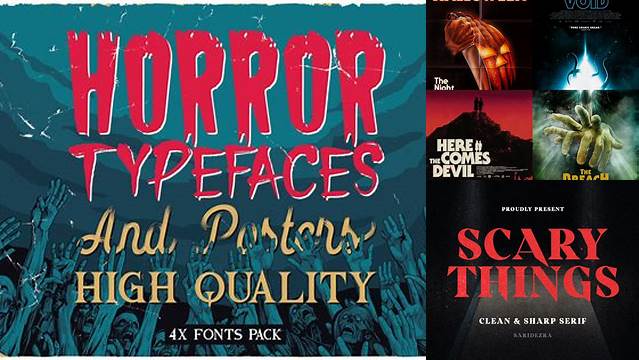
Scary Fonts: Best Choices For Horror Movie Posters
Introduction: Setting the Stage with the Right Font
Hey horror movie fanatics! Ever stopped to think about what makes a horror movie poster truly terrifying? Sure, a creepy image and a chilling tagline are essential, but the font you choose can make or break the whole experience. It's the first thing that grabs your attention and sets the tone, so choosing the best fonts for horror movie posters is crucial. Think about it: the right font can whisper of suspense, scream of terror, or even hint at something supernatural. The wrong font? Well, it can turn a potential masterpiece into a B-movie joke. This guide dives deep into the world of fonts, exploring what makes them work (or not work!) in the realm of horror. We'll cover everything from the characteristics of a good horror font to the actual font recommendations that will help you create posters that will scare your audience. Get ready to learn how to choose fonts that will send shivers down the spines of anyone who dares to look at your poster. It's about more than just picking letters; it's about crafting an atmosphere of dread and anticipation that will stick with people long after they've seen your movie. Using the right font can be the difference between a good horror movie poster and a truly unforgettable one. So let's get started and discover the power of typography in the world of horror.
The Anatomy of a Terrifying Font: Key Characteristics
Alright, let's get into the nitty-gritty of what makes a font scream "horror." Not all fonts are created equal, especially when it comes to evoking fear. Several characteristics contribute to a font's ability to scare. We're talking about the aesthetics, the overall style, and the historical usage that influences our perception. First up is serifs vs. sans-serifs. Serifs are those little "feet" or decorative strokes at the end of letters, while sans-serif fonts lack them. Generally, serif fonts, especially those with a gothic or old-fashioned appearance, can create a sense of history, tradition, or even the supernatural. Think about old books or the title cards of classic horror films; these serif fonts are often utilized to evoke feelings of ancient evil or dusty secrets. On the other hand, sans-serif fonts can feel more modern and can create a feeling of immediate dread. It's a more straightforward, often bolder style that can signal an impending threat. Think about a font that's distorted in a way that feels sharp and jagged. Next up, we have the weight and style. A heavy, bold font can feel imposing and threatening, perfect for grabbing attention. It says, "Look at me, and be scared!" A font's style also plays a significant role. A distressed or eroded font can evoke feelings of decay, destruction, or something being broken. These are visual cues that directly communicate the themes of horror. The more the font style evokes the idea of destruction, the more effective your horror movie poster will be. Other features include letter spacing and kerning. Tight, claustrophobic letter spacing can make the text feel oppressive. The characters are squeezed together, mimicking the feeling of being trapped. Looser spacing can create a sense of isolation and emptiness. Lastly, the historical context of a font cannot be overlooked. Some fonts have a history tied to horror, whether used in classic movie titles or associated with particular eras (like the gothic period), instantly creating a sense of familiarity for the audience. You can create a psychological connection with your target audience by picking a font that can trigger those deep-seated feelings.
Top Font Choices for Horror Movie Posters: Unleash the Fear
Now, let's get down to the good stuff: actual font recommendations. These fonts have proven to be effective at striking fear into the hearts of moviegoers. First, we have Gothic Fonts, a staple in horror. These fonts, with their sharp edges and ornate details, evoke a sense of the macabre and historical dread. Think of fonts like "Cloister Black" or "Trajan Pro." These fonts are immediately associated with tales of vampires, castles, and ancient evils. They can add a touch of sophistication to a horror movie poster while still making you feel uneasy. Next up, we have Distressed Fonts. These fonts look like they've been through something, which, in the world of horror, is a great sign. "Ravenscroft" or "Rust" are examples of distressed fonts. They have a worn, torn, or eroded look, implying decay, neglect, or a violent past. They're perfect for a zombie flick or a gritty slasher. Then there's the classic Blood-like Fonts. Okay, so you can't literally use blood as a font (though that would be metal), but you can choose fonts that mimic blood. Fonts with dripping or splattered effects, like "Creepster" or custom-designed fonts that incorporate blood textures, can be genuinely chilling. These fonts are not for the faint of heart and can add an element of gore to your poster. Modern and Minimalist Fonts also have a place in horror. Sometimes, a simple, clean font, like a bold sans-serif, can be more effective than a flamboyant one. These fonts, especially when combined with a disturbing image, create a sense of unease. They suggest a modern, sleek, yet dangerous world. Think about films where the horror is subtle and psychological. Finally, consider Custom Fonts. They give your poster a unique look, something nobody else has. You can hire a designer to create a font specifically for your movie, allowing you to tailor every detail to match the film's atmosphere. This is an excellent way to ensure your poster stands out from the crowd. The best way is to mix and match and create the perfect blend of fonts for a horror movie poster.
Font Pairing: Creating Visual Harmony and Tension
Choosing the right font is only half the battle. Knowing how to pair those fonts is essential to creating a cohesive and impactful poster. The goal is to create visual harmony while maintaining the tension and unsettling feeling inherent in horror. Here are some tips on how to master the art of font pairing. First, consider contrasting styles. Pairing a bold, impactful font with a more subdued one can create a dynamic that grabs attention. Using a distressed font for the title and a clean sans-serif for the supporting text is an example of contrast. The bold title demands attention, while the supporting font provides a sense of clarity. Second, think about hierarchy. Decide which elements are most important. The title of your movie should be the most prominent, followed by the tagline, cast, and release date. You can use font size, weight, and style to create a clear visual hierarchy. For instance, you can make the title the largest and boldest element on the poster. Next, consider readability. No matter how cool a font looks, it's useless if nobody can read it. Ensure that your fonts are legible, even from a distance. This is especially crucial for the title and other essential information. Keep an eye on your color. The font color should contrast with the background. White or light-colored fonts usually work well against dark backgrounds, and vice-versa. The color can also be used to amplify the horror. For example, using red or a blood-splattered effect with the fonts can amplify the fear your movie is supposed to create. Finally, remember the mood and theme of the film. The font pairing must reflect the movie's tone, whether it's a classic ghost story or a modern slasher. Use fonts that complement the story's theme and add to the poster's overall narrative. Ultimately, the goal is to create a poster that tells a story before the audience even sees the film. Good font pairing is essential to achieving this.
Avoiding Common Font Mistakes in Horror Movie Poster Design
Okay, so we've discussed what works. Now, let's talk about what doesn't work. Because choosing the wrong font is a quick way to ruin your horror movie poster. One of the biggest mistakes is using too many fonts. While it's good to have some variation, using too many fonts can make your poster look cluttered and unprofessional. Generally, stick to a maximum of two or three fonts. Secondly, poor readability is a no-no. If the audience can't read your poster's text, they won't know what it's about. Select fonts that are easy to read. Be particularly careful with decorative fonts; sometimes, readability is sacrificed for aesthetics. Be sure to test your poster from a distance to ensure all text is clear. Avoid inconsistent styles. Maintain consistency throughout the poster's design. Don't use a gothic font with a cartoonish one or mix styles that clash. The poster must create a cohesive image that blends well. Also, avoid using overused fonts. "Comic Sans" doesn't belong on a horror movie poster unless you want a laugh. Overused fonts will make your poster look amateurish, generic, and dated. Research the fonts you're considering and ensure they're appropriate for the genre. Don't use fonts that conflict with the imagery. The font and the image must complement each other. If your poster features a clean, modern image, don't pair it with a rustic, distressed font. They must go together and convey the right feelings to your potential viewers. Lastly, remember to pay attention to alignment and spacing. Poor alignment and spacing can make your poster look messy and unprofessional. Ensure that your text is properly aligned and that the spacing between letters, words, and lines is consistent. A well-designed poster will always be aesthetically pleasing to potential viewers.
Conclusion: Crafting the Perfect Font for Your Horror Masterpiece
So, there you have it, the complete guide to choosing the best fonts for horror movie posters! You now have the knowledge to select fonts that will add to the scare factor of your movie. Remember that the right font can set the tone, evoke fear, and draw the audience into your terrifying world. Be bold, experiment, and choose fonts that reflect your movie's unique atmosphere. Use the information we've covered in this guide to create a poster that will become a visual representation of your horror film. Take inspiration from the suggestions we've made, but don't be afraid to experiment and create something unique. Ultimately, the perfect font is the one that best communicates the story you want to tell. Now go forth and create posters that will haunt the dreams of your audience! Remember, the best horror posters are the ones that stay with you. The right font will help you achieve that goal. Good luck!